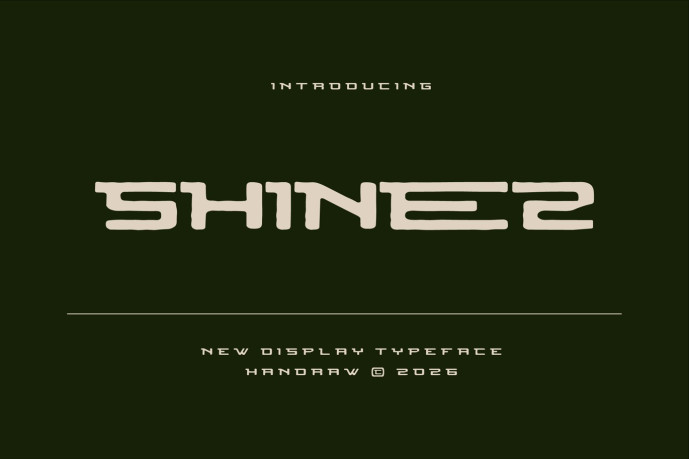
Shinez Font
Designer: Handraw
Shinez Font is a new retro hand-drawn display font that brings a touch of nostalgia with its bold and artistic design. The font features expressive, irregular strokes, reflecting the charm of hand-drawn lettering. Its retro vibe makes it perfect for creative projects, advertisements, posters, and logos, adding personality and warmth to any design. Shinez combines a playful, vintage style with modern readability, making it a versatile choice for a wide range of applications while maintaining a unique, handcrafted appeal.